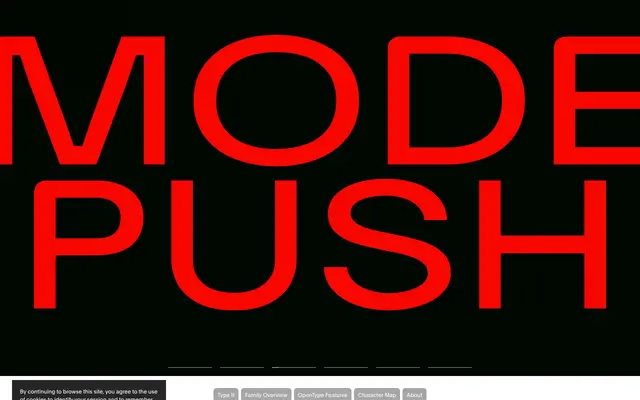
Artex
Artex specimen from Optimo
A neo-grotesque variable system by Valentin Brustaux, spanning compressed to extended widths and hairline to black weights, engineered for static and motion use.
A neo-grotesque by Valentin Brustaux that takes the genre into variable-font territory. The programme runs from compressed to extended through six widths and from hairline to black through six weights, delivered as 72 static fonts plus variable formats. Modular and symmetrical construction keeps the curves clean during weight and width transitions, and each style includes 29 alternate glyphs, so the family suits motion graphics, identity systems and editorial work that needs to flex from text to display.
Optimo describes Artex as bringing the neo-grotesque programme into the realm of variable fonts, with simplified forms that temper strict geometry and modular, symmetrical construction tuned for transitions across widths and weights.